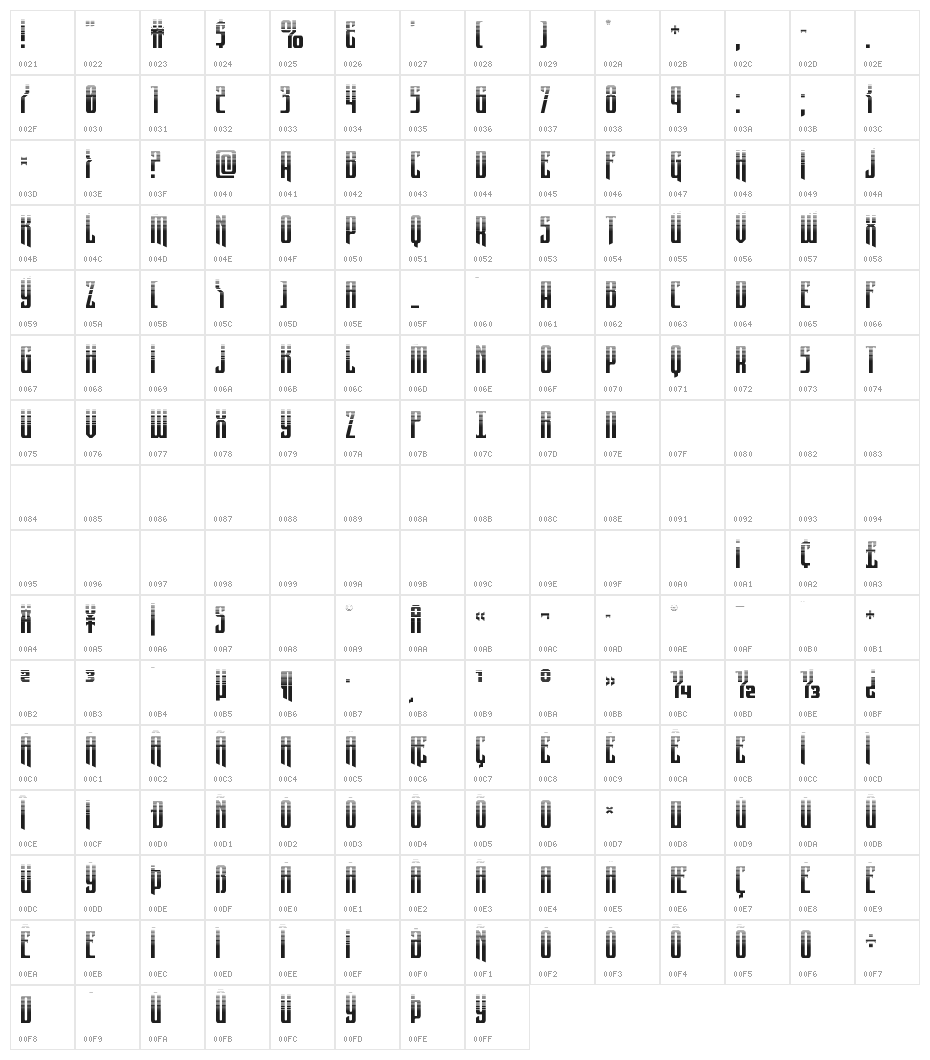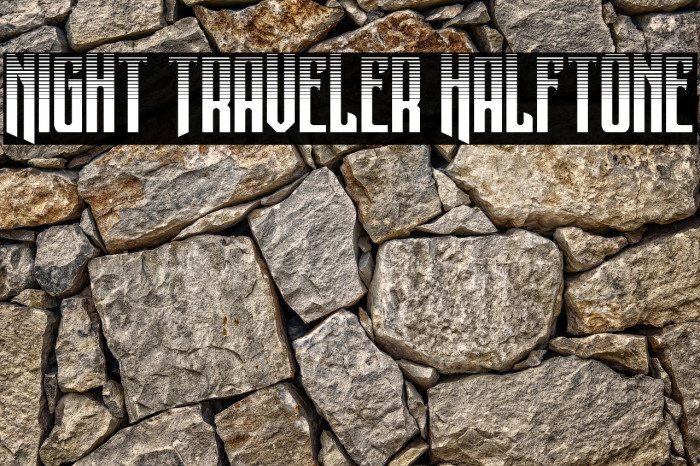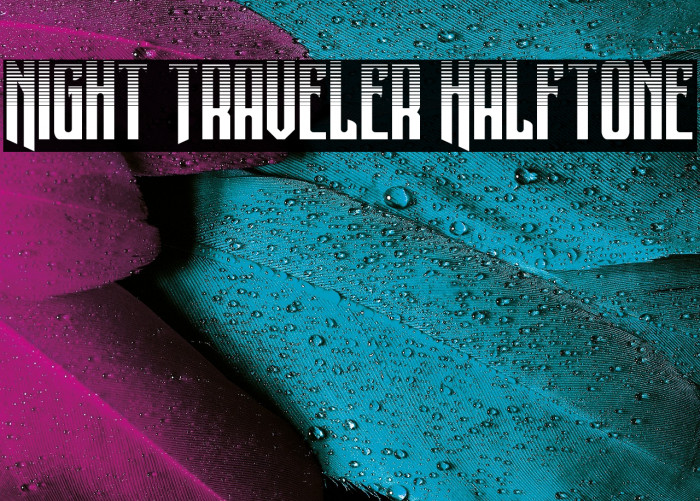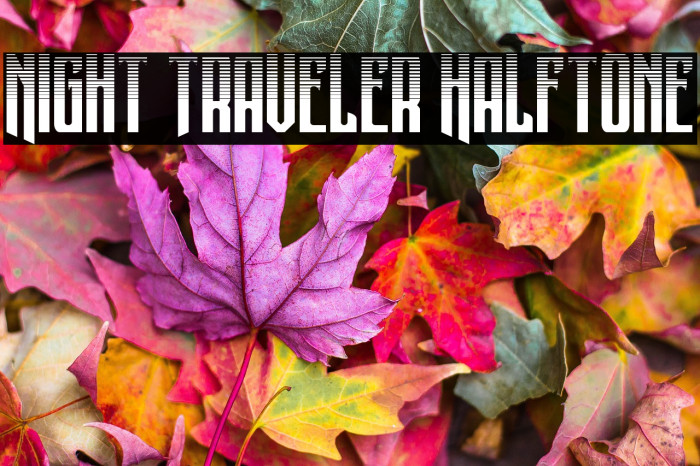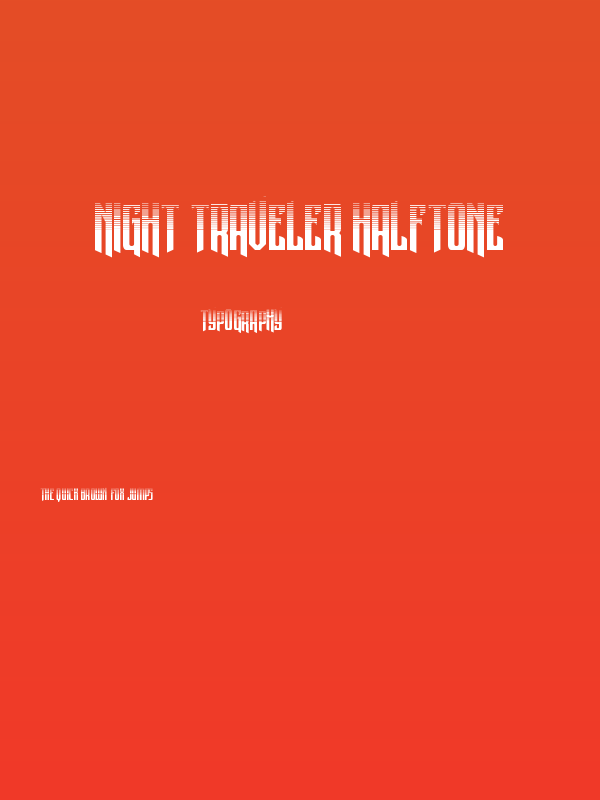
Night Traveler Halftone Font
Night Traveler Halftone Description
This font features a unique halftone design that combines bold, geometric shapes with a gradient effect, creating a striking visual impact. The uppercase and lowercase letters are designed with a consistent width, giving the font a monospaced appearance. The numbers and special characters follow the same stylistic approach, ensuring uniformity across all elements. The halftone effect adds a modern, digital feel, making it ideal for projects that require a futuristic or tech-inspired aesthetic. The boldness of the characters ensures readability while maintaining a decorative flair.
Proposed ProjectsIdeal for tech-themed posters, digital art, video game graphics, and modern branding projects.